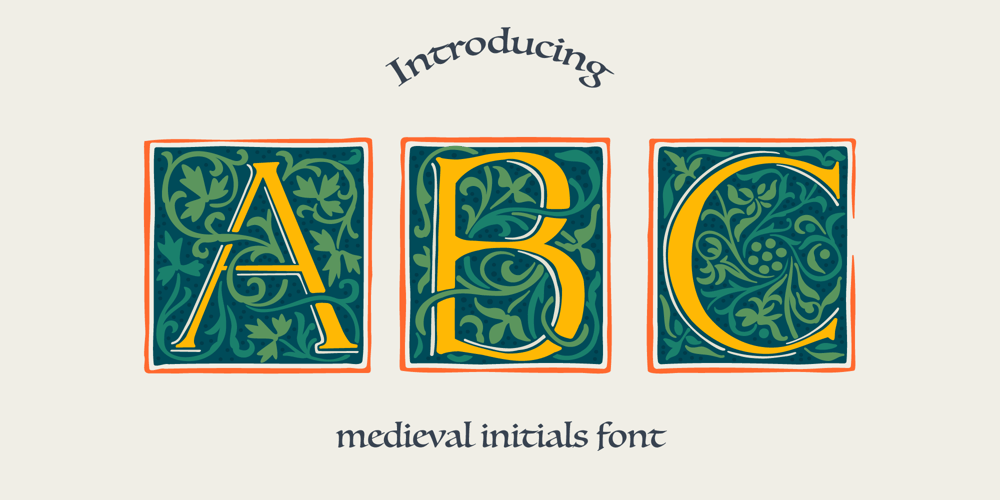
Augsburg Initials Font Family was designed by Roman Korolev and published by Kaer. Augsburg Initials contains 2 styles and family package options. Hey! I’m happy to introduce to you my new initial’s set.These drop caps I found in the “Introductorium in astronomiam” manuscript. It was printed in Augsburg in 1489 by Erhard Ratdolt. I’ve added some lost letters and assembled a full alphabet.Augsburg is a medieval gothic style font. Set of dim colored and monochrome grunge style emblems. Engraved initial drop caps. Perfect for vintage premium identity, Middle Ages posters, luxury packaging. If you want dark and strong medieval style concepts, please try it.—*You can use color fonts in PS since CC 2017, AI since CC 2018, ID since CC 2019, macOS 10.14 Mojave**Please note that the Canva & Corel doesn’t support color fonts!*—Please feel free to request any help you need: kaer.pro@gmail.comBest, Roman.Thank you!